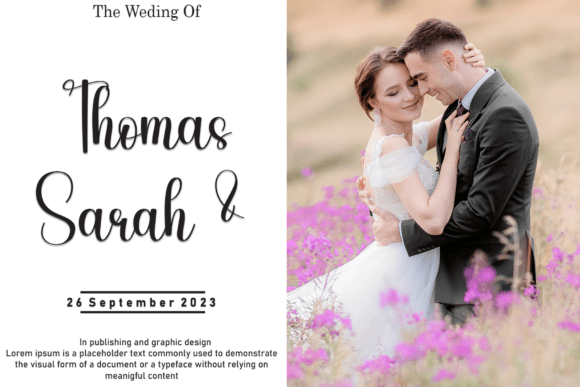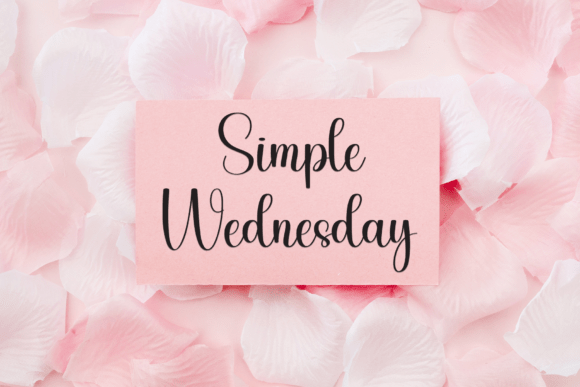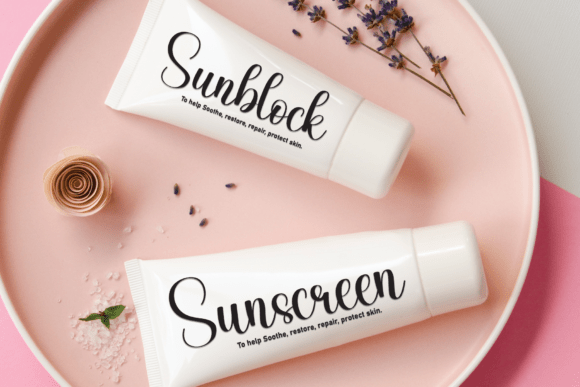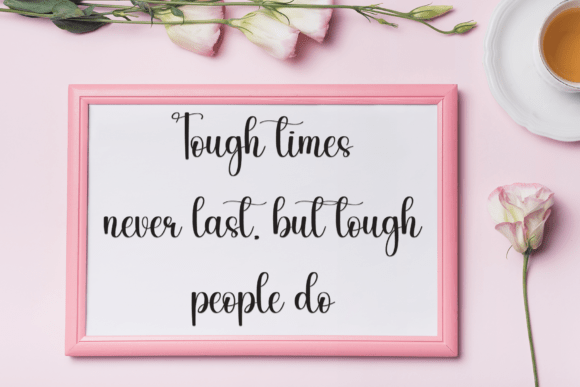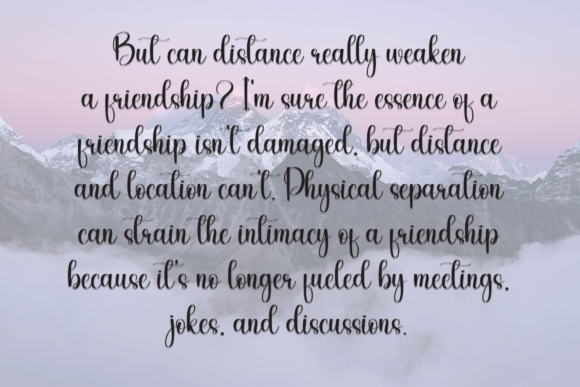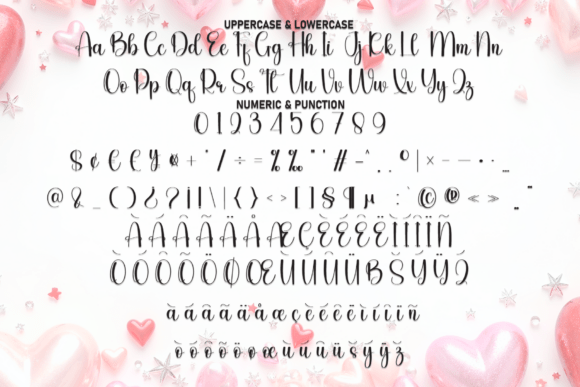
Introducing Funny Valentine Font: The Perfect Addition to Your Design Arsenal
Are you tired of using the same old boring fonts in your designs? Look no further! We’re excited to introduce Funny Valentine Font, a lively and colorful, hand-drawn typography that’s sure to bring a touch of warmth and friendliness to any design it graces. This captivating script is perfect for designers and crafters looking to add a unique charm and youthful spirit to their work.
A Font that Packs a Punch of Personality
Funny Valentine Font is not your average font. Its hand-drawn design gives it a unique and quirky feel that’s sure to make your designs stand out from the crowd. The font’s lively and colorful nature makes it perfect for designs that require a playful touch, such as wedding invitations, greeting cards, and other celebratory materials. Whether you’re a designer looking to add some personality to your work or a crafter seeking to create something special, Funny Valentine Font is the perfect choice.
One of the best things about Funny Valentine Font is its adaptability. This font can be used in a variety of designs, from elegant wedding invitations to playful greeting cards. Its unique charm and youthful spirit make it perfect for any design that requires a sprinkle of enchantment. Whether you’re creating something for a special occasion or just want to add some personality to your everyday designs, Funny Valentine Font is the perfect addition to your design arsenal.
Breathe Life into Your Designs
Funny Valentine Font has a way of breathing life into any design it graces. Its artistic essence is tantalizing, charming, and entrancing, making it perfect for designers and crafters who want to create something truly special. With this font, you can add a delightful stroke to your designs, making them more visually appealing and engaging. Whether you’re working on a wedding invitation, a greeting card, or any other design project, Funny Valentine Font is sure to ignite your creative flair.
Funny Valentine Font is particularly well-suited for wedding invitations and greeting cards. Its elegant yet playful design makes it perfect for celebrating special occasions. With this font, you can create beautiful and unique wedding invitations that will set the tone for the big day. Additionally, Funny Valentine Font can be used to create stunning greeting cards for birthdays, holidays, and other special occasions.
Why Choose Funny Valentine Font?
So, why choose Funny Valentine Font over other fonts? Here are just a few reasons why this font stands out from the crowd:
- Unique and Quirky Design: Funny Valentine Font has a hand-drawn design that’s both unique and quirky, making it perfect for designers and crafters who want to add some personality to their work.
- Adaptable: This font can be used in a variety of designs, from wedding invitations to greeting cards and more.
- Youthful Spirit: Funny Valentine Font has a youthful spirit that’s sure to bring a touch of warmth and friendliness to any design.
- Easy to Use: This font is easy to use and can be incorporated into a variety of design projects.
Get Creative with Funny Valentine Font
Now that you’ve been introduced to Funny Valentine Font, it’s time to get creative! Whether you’re a designer or crafter, this font is sure to inspire you to create something truly special. With its unique charm and youthful spirit, Funny Valentine Font is the perfect addition to your design arsenal. So why wait? Dive into its mesmerizing charm and ignite your creative flair!
In conclusion, Funny Valentine Font is a lively and colorful, hand-drawn typography that’s perfect for designers and crafters looking to add a touch of warmth and friendliness to their work. Its adaptability, unique charm, and youthful spirit make it perfect for a variety of designs, from wedding invitations to greeting cards and more. So if you’re looking to add some personality to your designs, look no further than Funny Valentine Font.